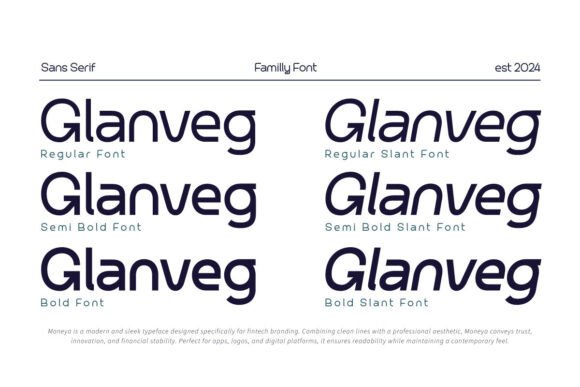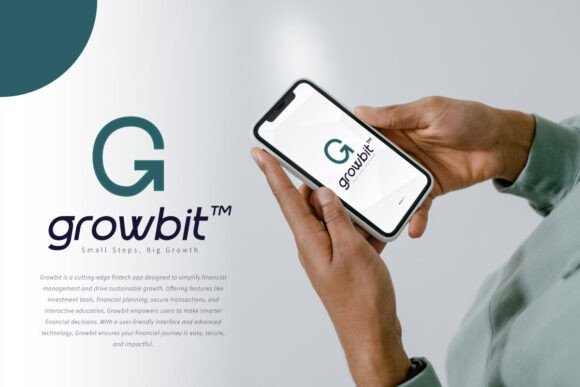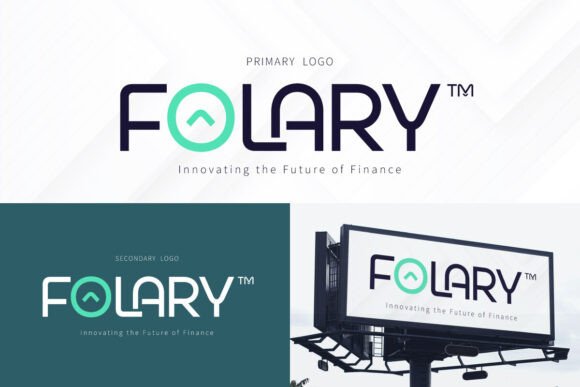
Introduction to Imgrow Font
Have you ever stared at a blank canvas, unsure of where to start your next design project? The cursor blinks, and your mind goes blank. But what if you had the perfect tool to spark your creativity? Enter Imgrow Font, a sleek and professional typeface designed specifically for financial and technology branding.
Key Features of Imgrow Font
- Supports various languages and is suitable for use in logos, branding, and other design elements.
- Features a unique and modern design, making it a great addition to any creative project.
Honest Review: Imgrow Font
As a designer, I’m always on the lookout for high-quality design resources to elevate my creative projects. Recently, I stumbled upon the Imgrow Font, and I’m excited to share my honest review with you.
Here are some aspects where the Imgrow Font truly shines:
- ✨ High-quality design: The font is crisp, clean, and visually appealing, making it perfect for a wide range of creative projects.
- ⚠️ Limited character set: The Imgrow Font may not offer as many character options as some other fonts, which could be a concern for designers who need to work with multiple languages.
Overall, I think the Imgrow Font is a solid addition to any designer’s toolkit. Its high-quality design, free download, and transparent background make it a great choice for creative projects. However, its limited character set and customization options may be a concern for some designers.
Imgrow Font is perfect for a variety of creative projects, including:
- Branding and logo design
- Print and digital advertising
- Graphic design and visual arts